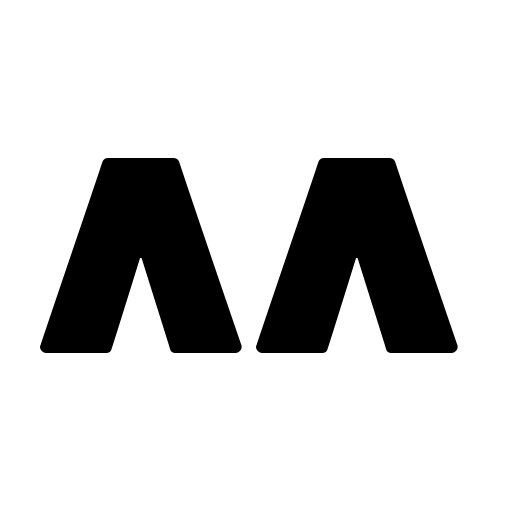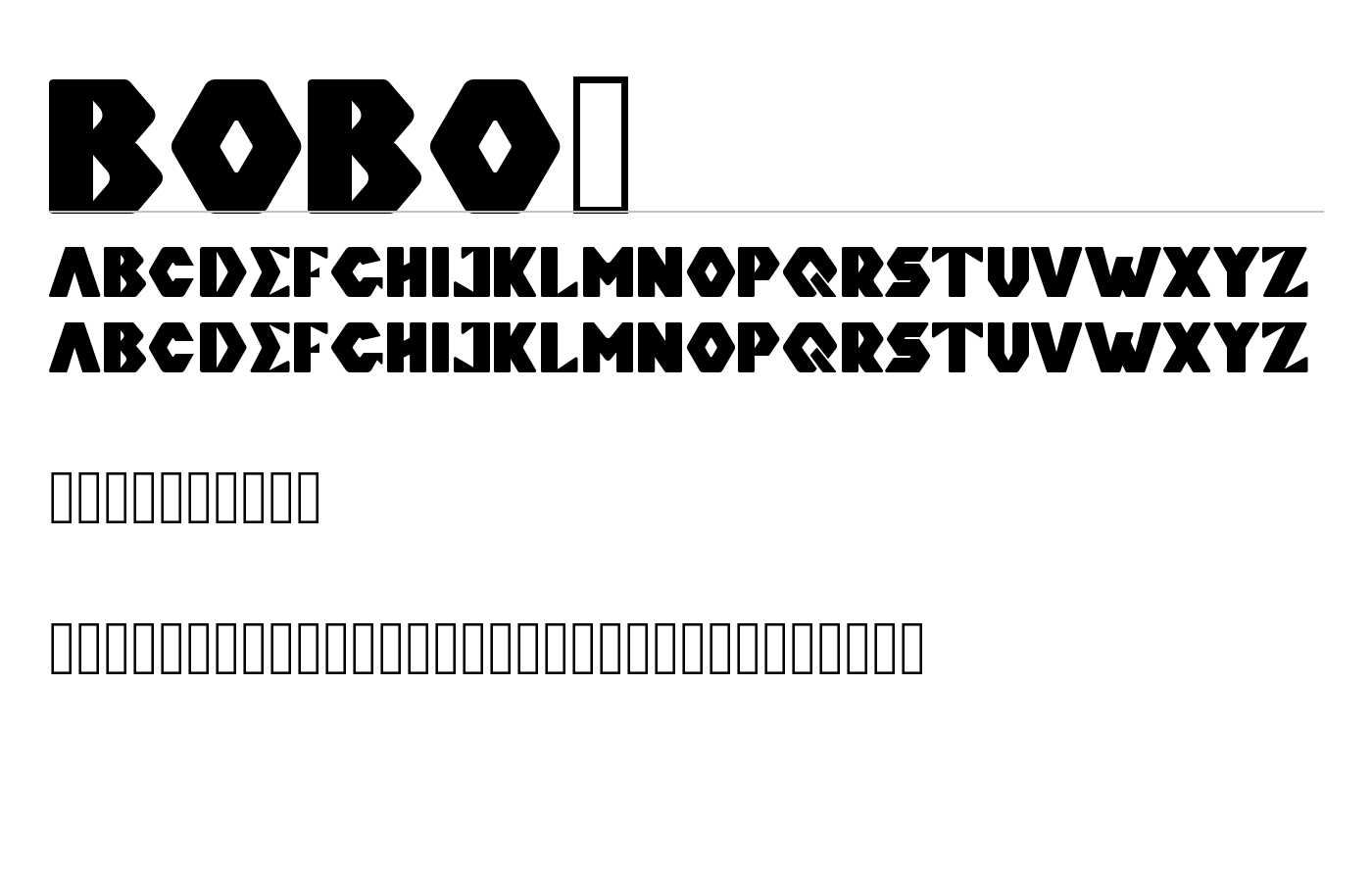
Bobo1 is a bold, geometric sans serif font with strong, angular shapes and a heavy weight that commands attention. Its futuristic and slightly playful design makes it ideal for eye-catching headlines, logos, and creative branding that aims to stand out with a modern, edgy personality. This font works best in large sizes where its unique letterforms can be fully appreciated.
bobo1 Font
About bobo1 Font